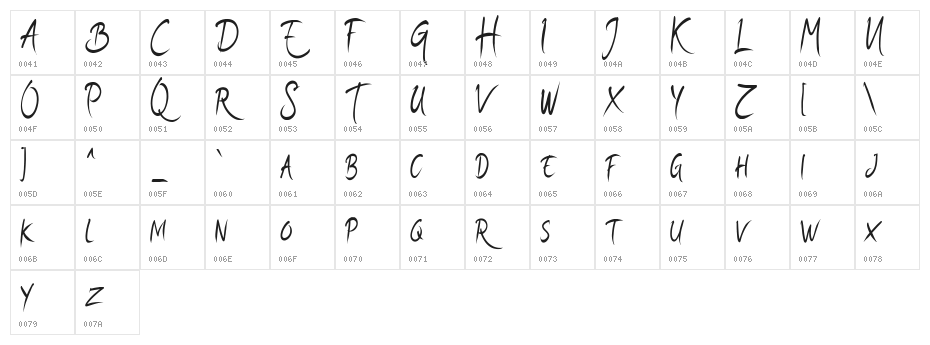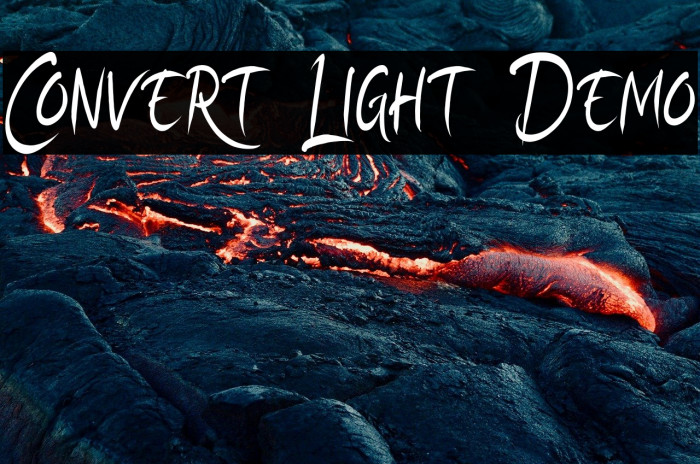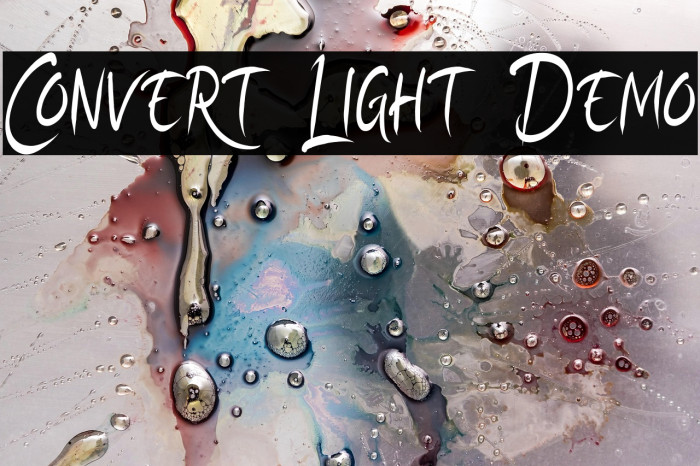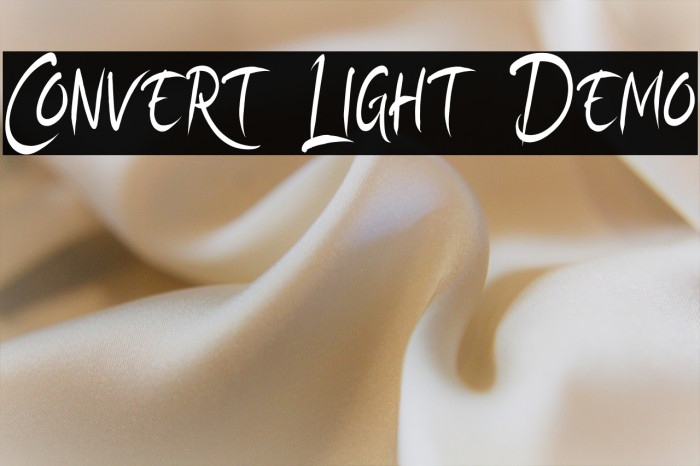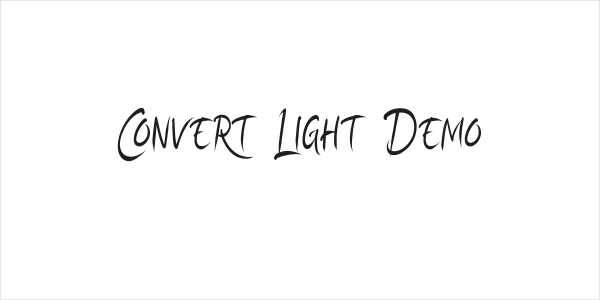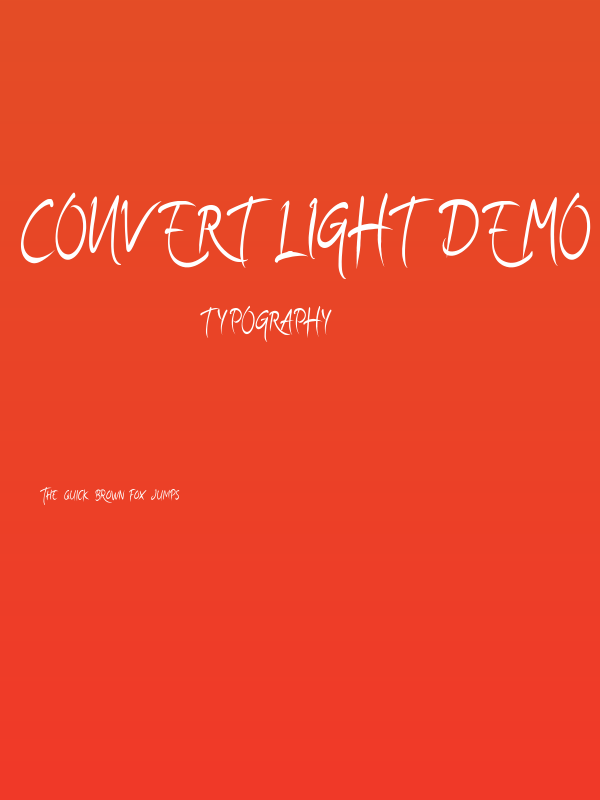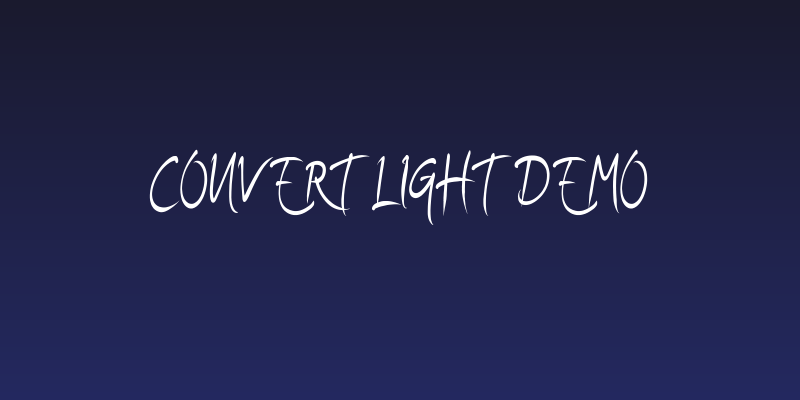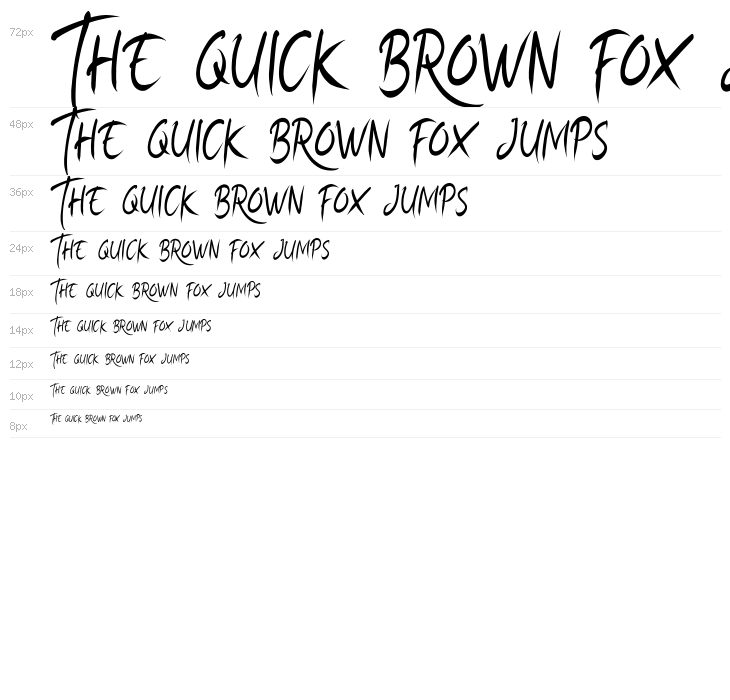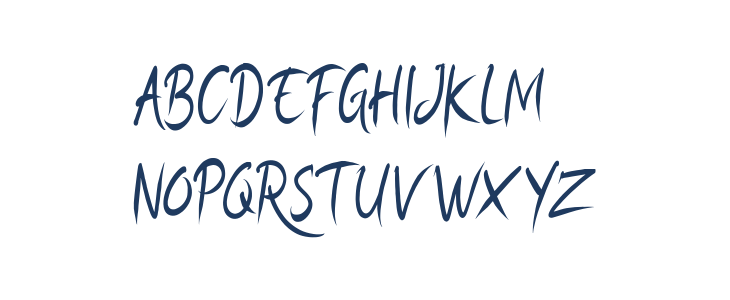
Convert Light Demo Font
Convert Light Demo Description
This font features a dynamic and expressive style, characterized by its fluid, brush-like strokes that convey a sense of movement and energy. The letters are crafted with varying thickness, creating a lively rhythm and a sense of spontaneity. The uppercase and lowercase letters maintain a consistent style, with elongated ascenders and descenders that add to the font's dramatic flair. The numerals and special characters are designed to complement the overall aesthetic, ensuring a cohesive appearance across all text elements. This font's unique style makes it ideal for projects that require a touch of creativity and artistic expression.
| Use Case | Headlines, Logos, Artistic designs |
| Proposed Projects | Ideal for creative projects such as posters, invitations, branding, and artistic designs that require a bold, expressive touch. |